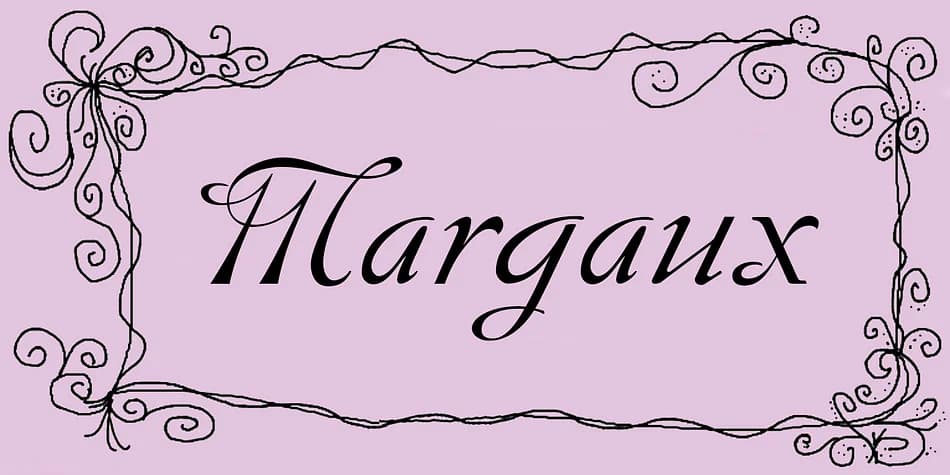
You're designing an invitation for a luxury jewelry launch, and you need something that whispers sophistication without shouting. Margaux, designed by Scholtz Fonts, is an italic display typeface that channels the refined aesthetic of Paris in the 1920s. Its disciplined strokes and elegant letterforms make it exactly right for contexts where restraint and taste matter far more than decorative excess. This is a font built for designers who grasp that true luxury lies in what you don't do.
The typeface balances deliberate simplicity in the lowercase with decoratively flourished capitals that naturally draw the eye. That balance makes it exceptionally strong for luxury wedding invitations, theatre playbills, boutique perfume labels, anniversary greeting cards, and upscale restaurant menus where a whisper of old-world charm signals both quality and intention. The letterforms read with crisp clarity even when set at substantial display sizes, a crucial strength when you're spanning both intimate printed materials and more dramatic installation work.
Margaux Font is a display font that shines as a display or heading face. Pair it with a clean sans-serif or serif font for body text โ the contrast creates a clear hierarchy while the two styles stay balanced and easy to read.